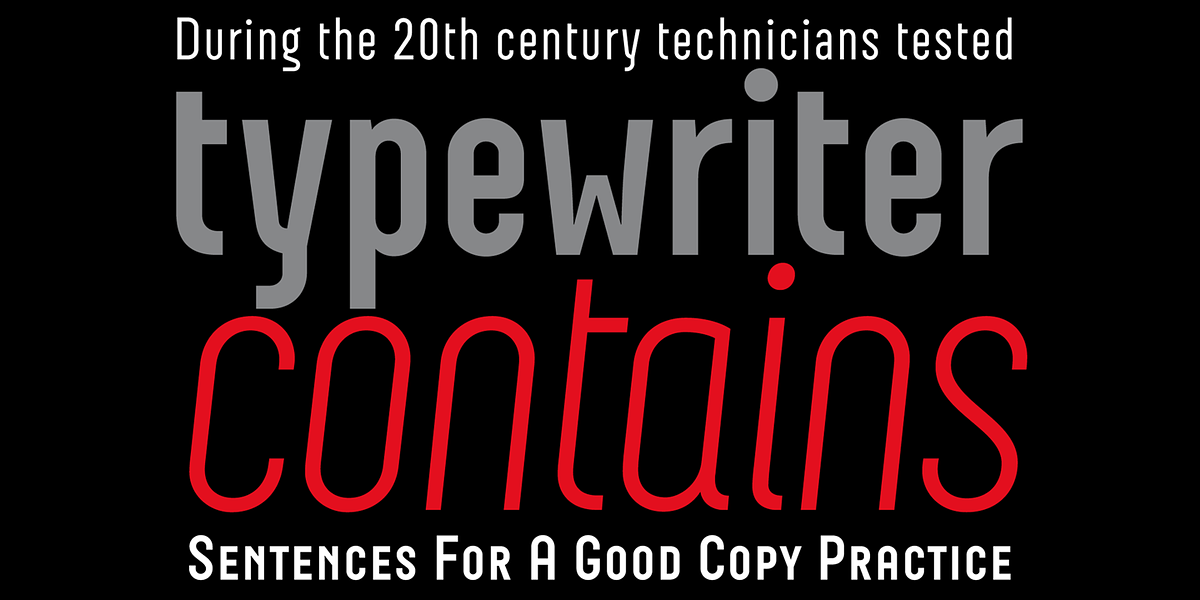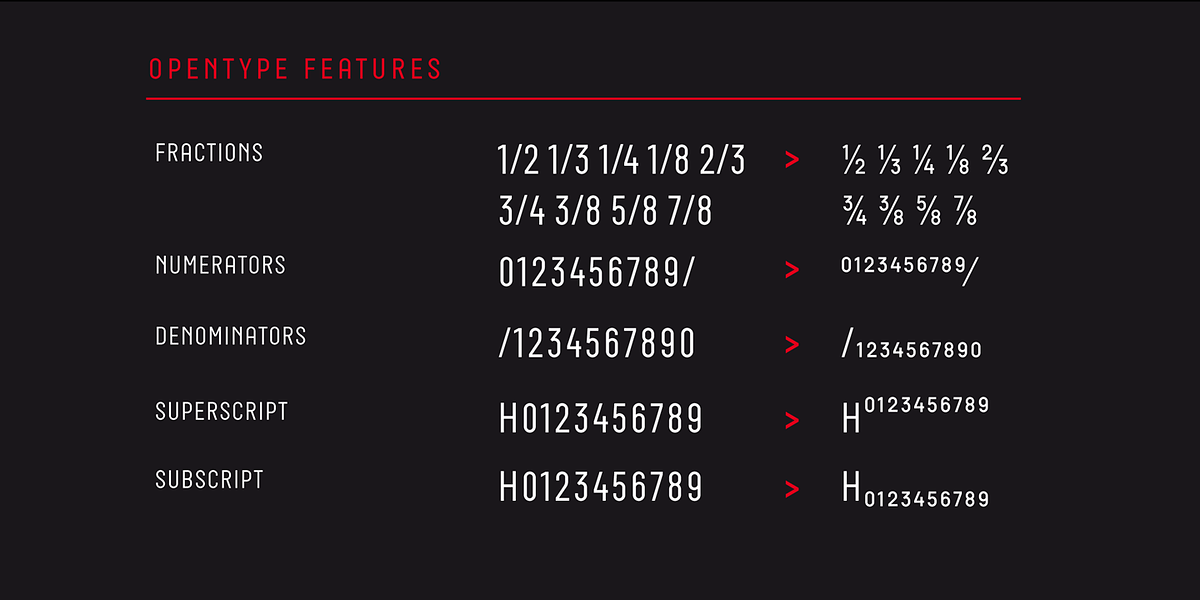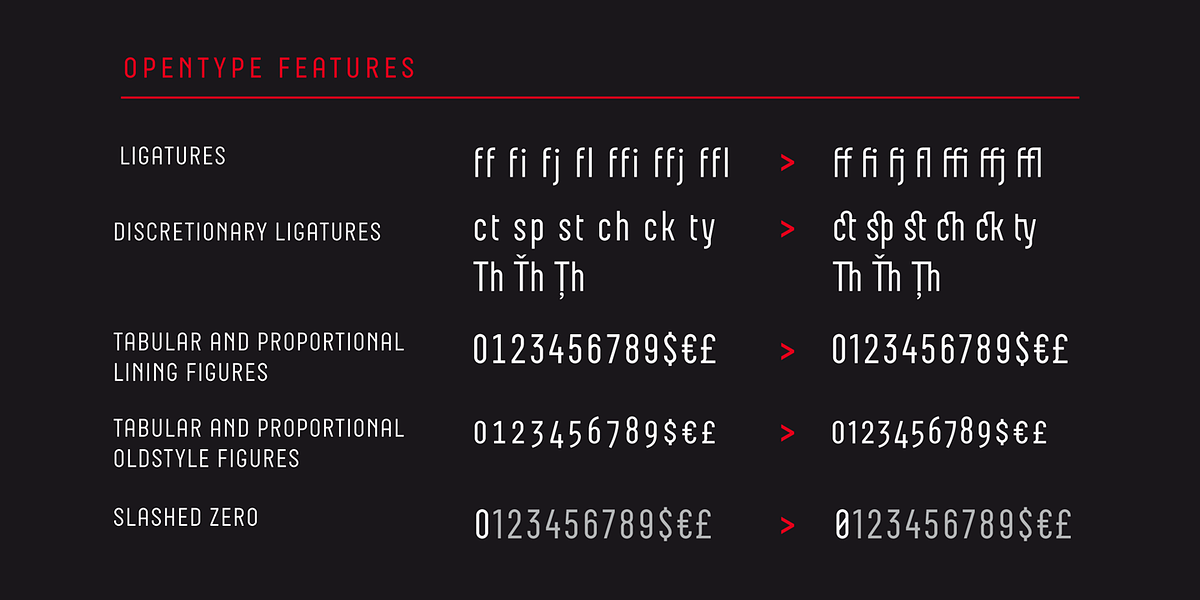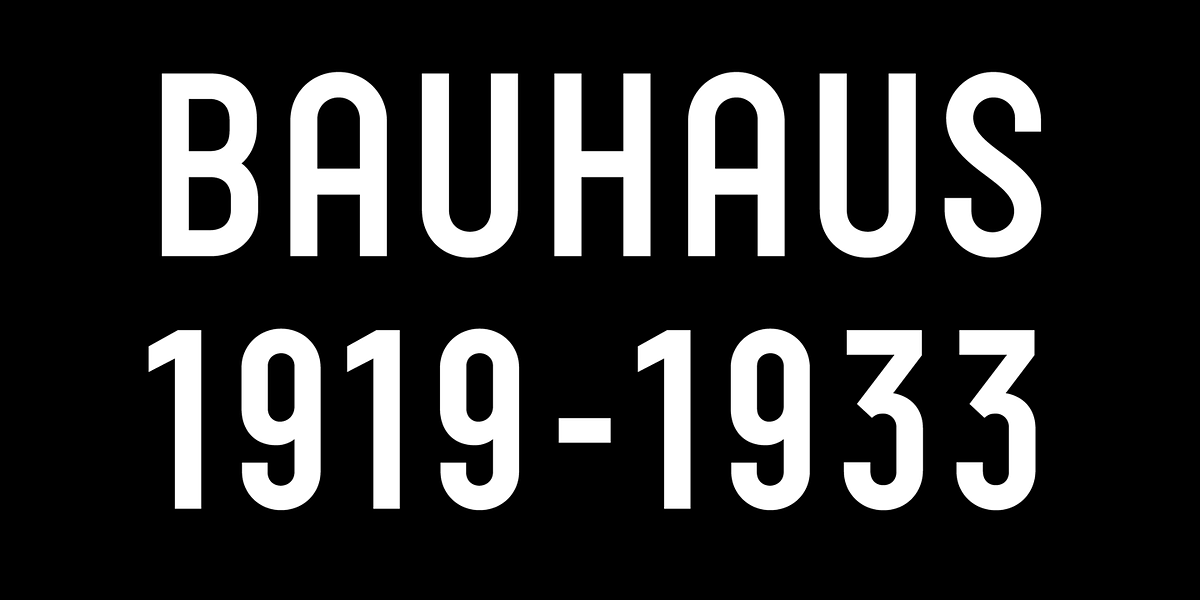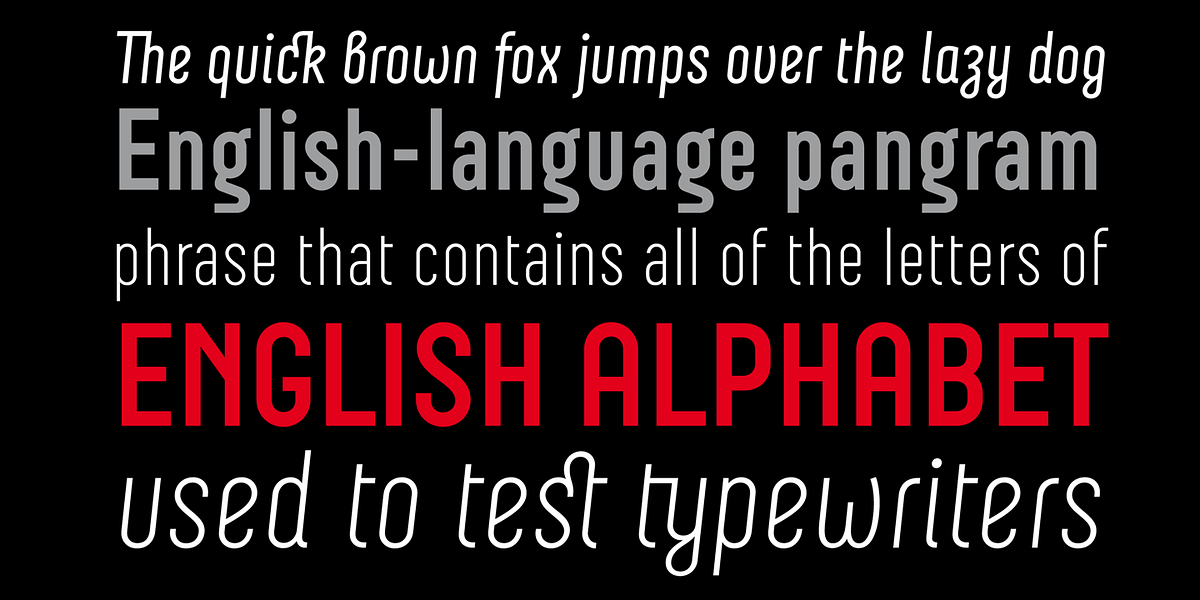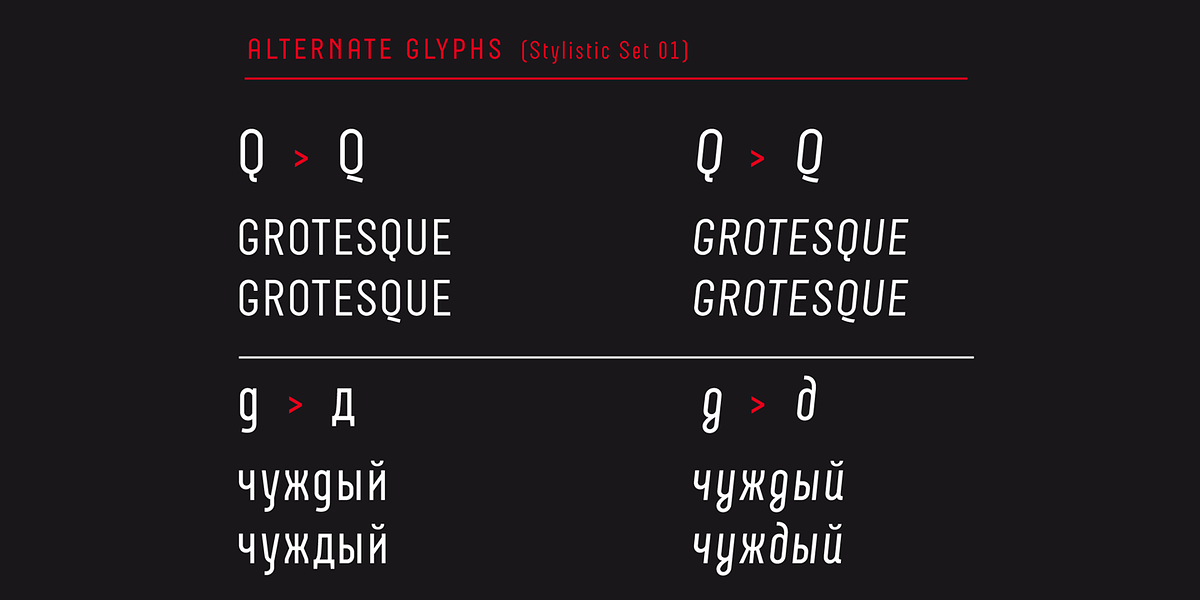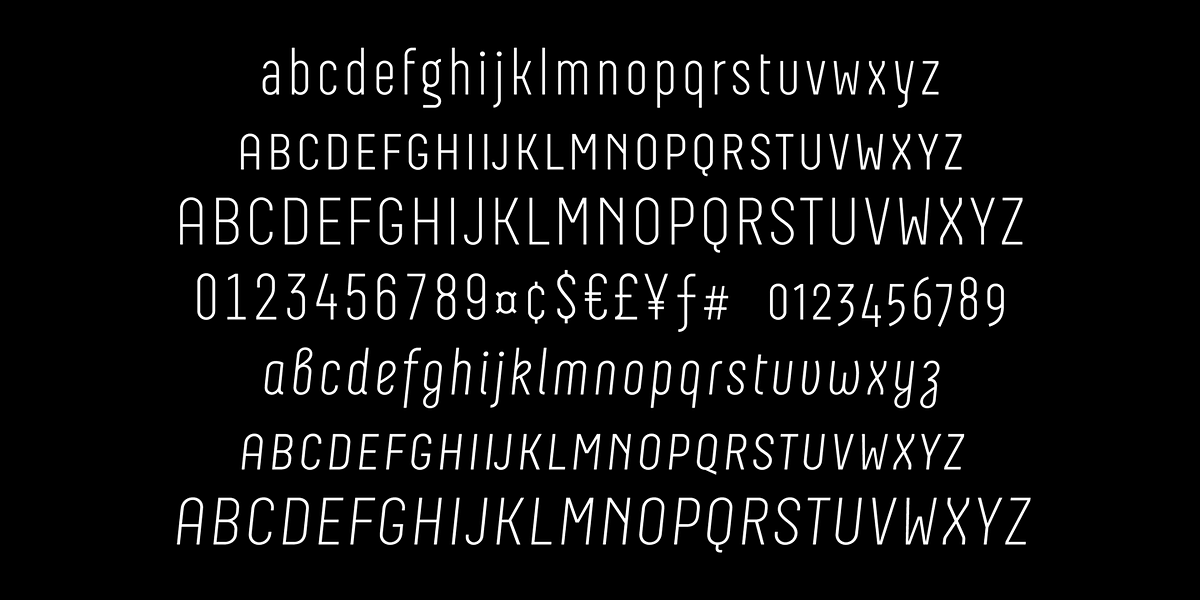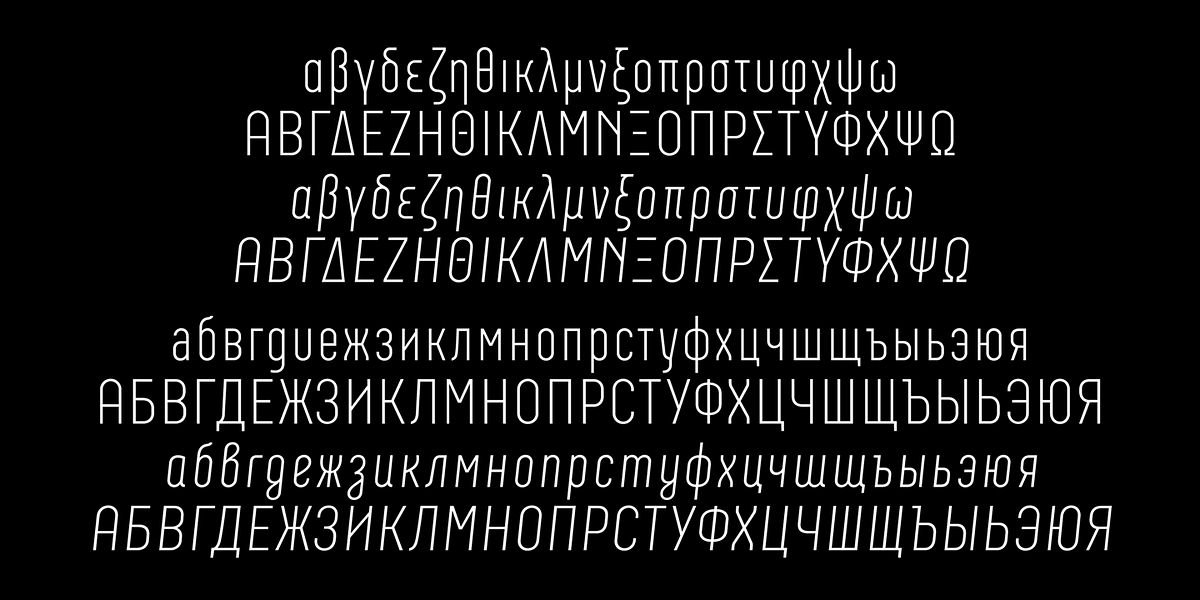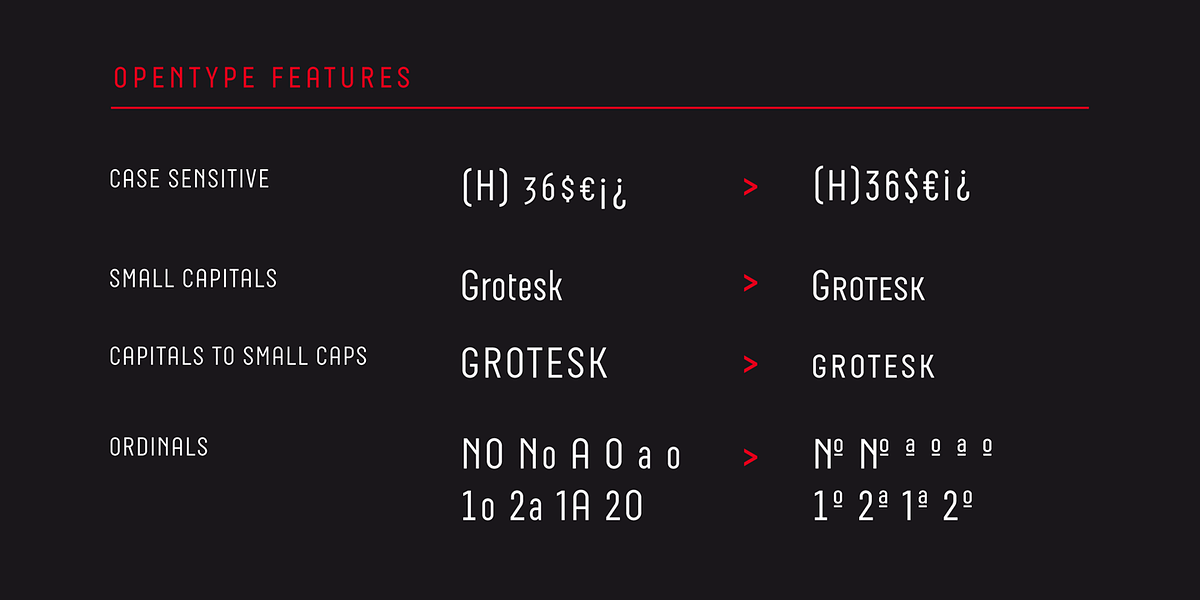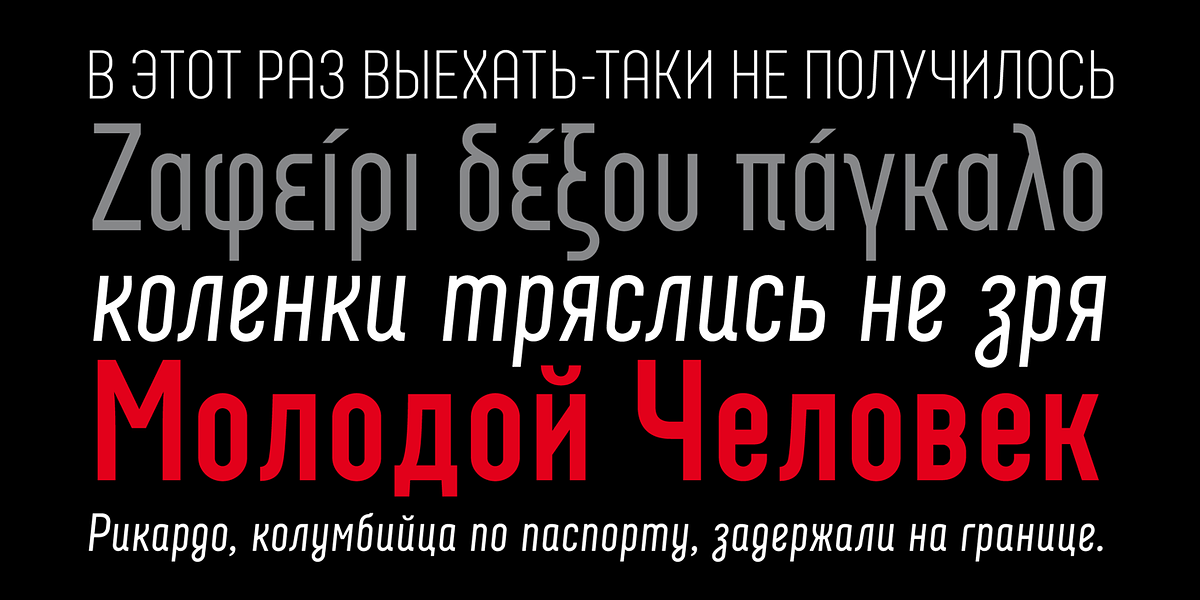
Neubau Pro
Neubau Pro is a modern geometric sans-serif typeface inspired by the lowercase letters designed by Joost Schmidt at the Bauhaus Dessau between 1925 and 1928. This design movement emphasized strict geometric construction using only a ruler and compass. Neubau Pro is an updated version of the original Neubau font, featuring refined glyph shapes and expanded language support, including Latin, Greek, and Cyrillic. It's available in six styles with small caps and true italics, and includes OpenType features. The typeface is well-suited for editorials and print designs where a clean, modern aesthetic is desired.